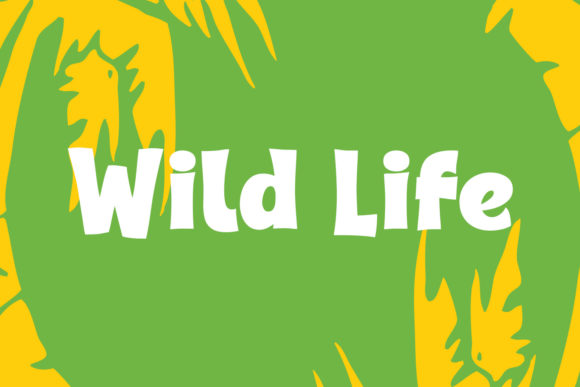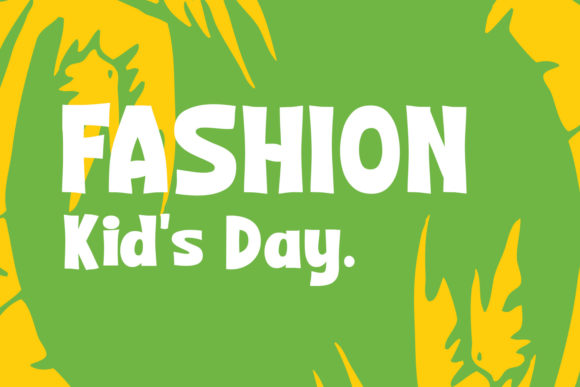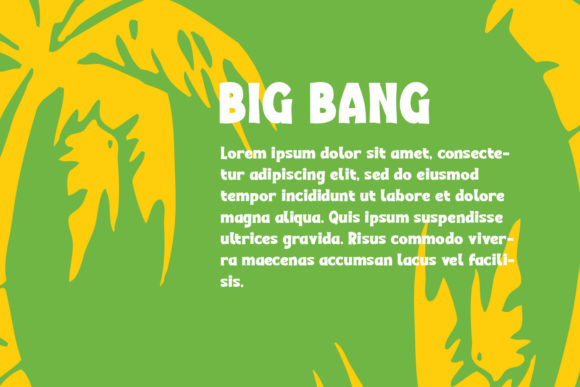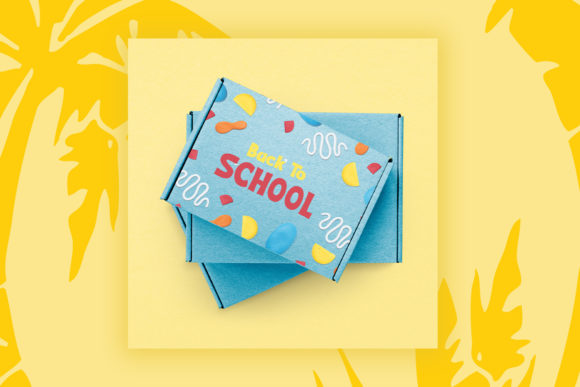
Unleash Your Creativity with Dragon Font: A Bold and Versatile Display Font
Are you tired of using the same old fonts in your designs? Look no further than the Dragon Font, a cool, bold, and thick lettered display font that’s sure to elevate your creations. With its unique and eye-catching style, Dragon Font is an incredible asset to any designer’s font library, regardless of the topic or project.
What Makes Dragon Font So Special?
Dragon Font is a game-changer for designers and crafters who want to add a touch of boldness and personality to their work. Its thick, chunky letters are perfect for creating eye-catching headlines, titles, and captions that demand attention. The font’s versatility is also one of its standout features, making it suitable for a wide range of projects, from:
- Social media graphics and ads
- Web headers and banners
Key Features of Dragon Font
So, what makes Dragon Font so unique? Here are some of its key features:
- Bold and thick letters: Dragon Font’s chunky letters are perfect for creating eye-catching headlines and titles.
- Clean and modern design: The font’s clean and modern design makes it perfect for a wide range of projects, from digital to print.
- Highly legible: Despite its bold style, Dragon Font is highly legible, even at smaller sizes.
- Versatile: Dragon Font can be used for a wide range of projects, from logos and branding materials to posters and social media graphics.
How to Use Dragon Font in Your Designs
Using Dragon Font in your designs is easy. Here are some tips to get you started:
- Pair it with a sans-serif font: Pair Dragon Font with a clean sans-serif font, such as Arial or Helvetica, to create a bold and modern contrast.
- Use it for headlines and titles: Dragon Font is perfect for creating eye-catching headlines and titles that demand attention.
- Experiment with colors and textures: Don’t be afraid to experiment with different colors and textures to add depth and interest to your designs.
Why Designers and Crafters Love Dragon Font
Dragon Font has quickly become a favorite among designers and crafters, and for good reason. Here are some reasons why:
- Unique and eye-catching style: Dragon Font’s bold and chunky letters are sure to make your designs stand out.
- High-quality design: Dragon Font is designed to high standards, ensuring that your designs look professional and polished.
In conclusion, Dragon Font is a cool, bold, and versatile display font that’s perfect for designers and crafters who want to add a touch of personality to their work. With its unique and eye-catching style, Dragon Font is sure to elevate your creations and make them stand out from the crowd. So why wait? Download Dragon Font today and unleash your creativity!